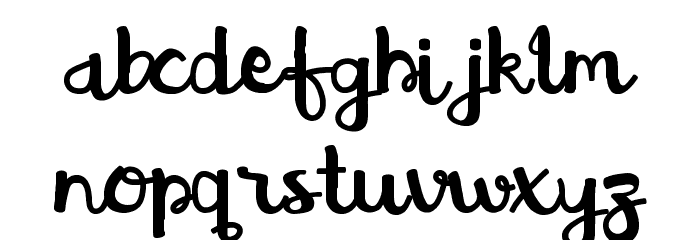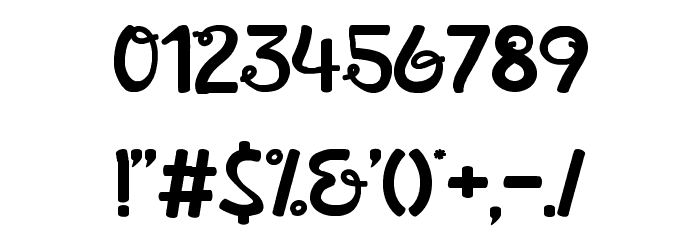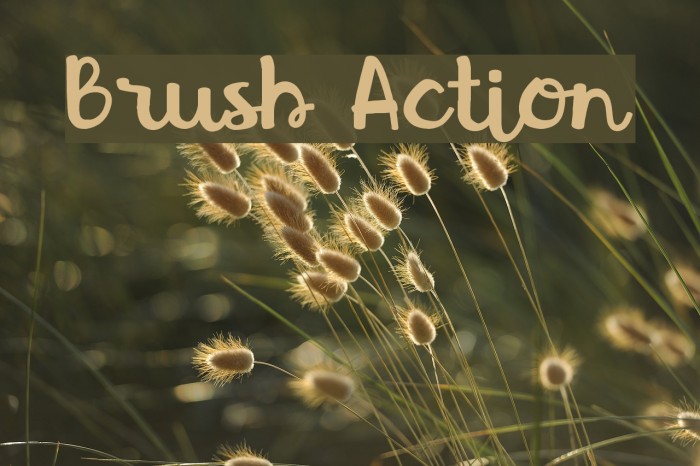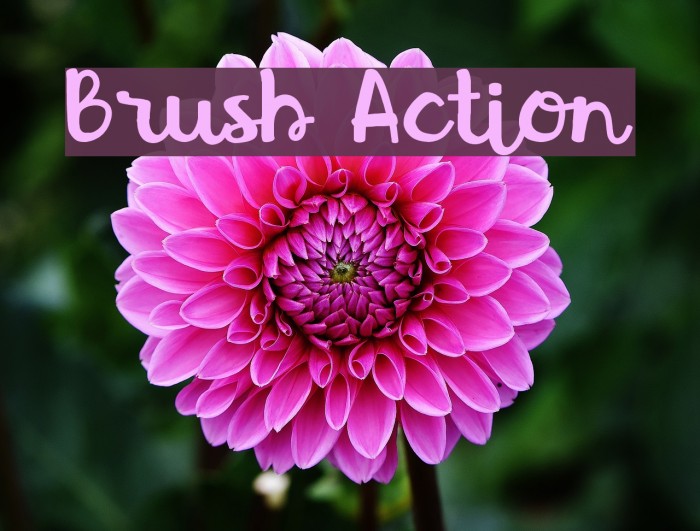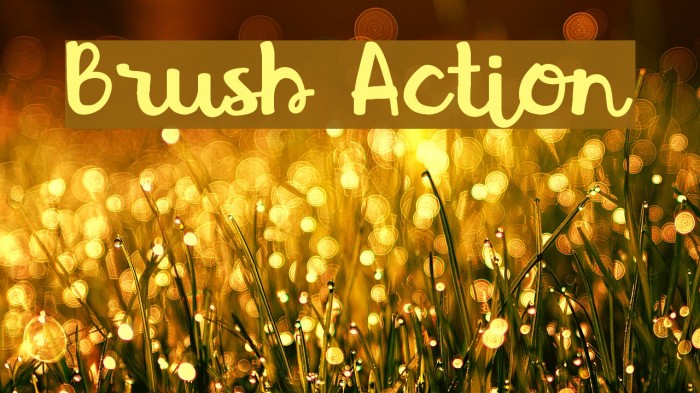
Brush Action Font
This font exudes a playful and energetic vibe, characterized by its bold, brush-like strokes that give it a handwritten appearance. The letters are slightly slanted, adding a dynamic flow to the text. The uppercase and lowercase letters maintain a consistent style, with rounded edges and a casual, informal feel. The numerals and special characters are equally expressive, complementing the overall aesthetic. This font is ideal for projects that require a personal touch, such as invitations, greeting cards, or creative branding.
A bold, brush-style font with a playful, handwritten look.
- Proposed Projects: Ideal for invitations, greeting cards, creative branding, and playful designs.
- Use Case: Headlines, Logos, Creative projects